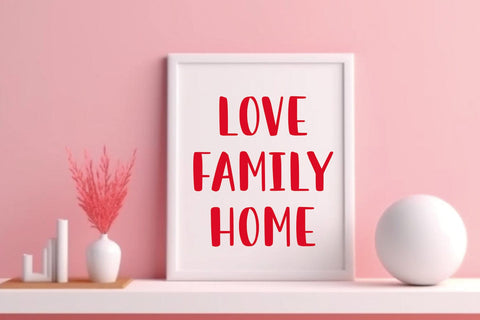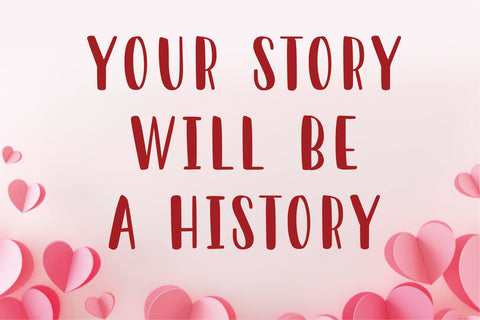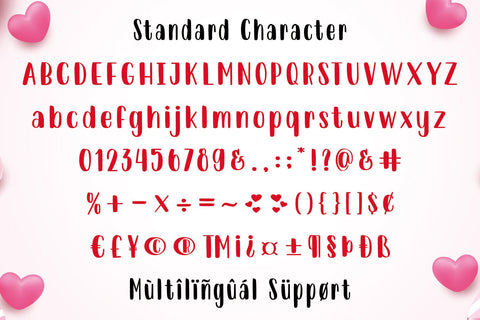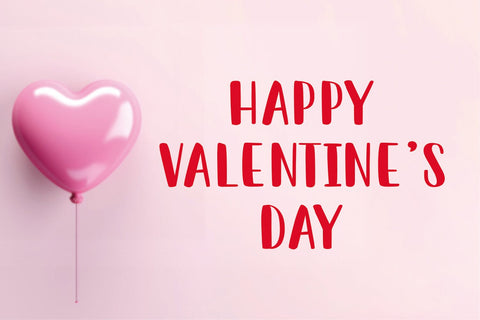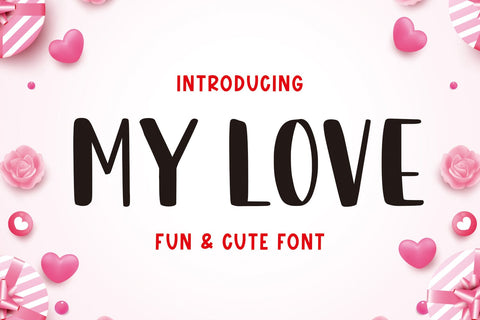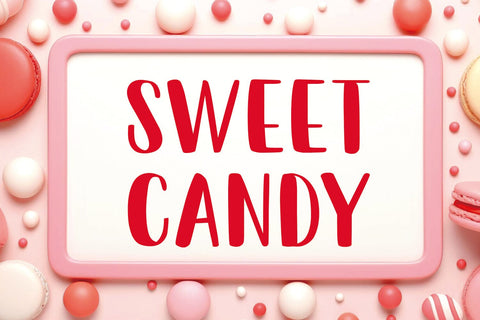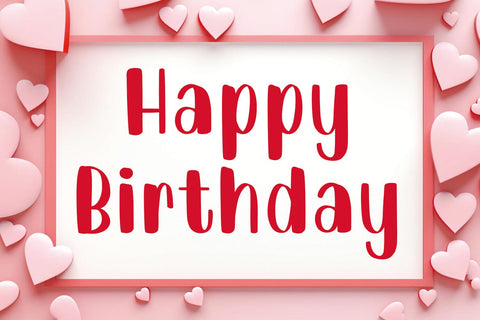
My Love - Valentine Font
Introducing “My Love” Font – an enchanting display font designed to add a touch of charm and sweetness to your projects. With its adorable and captivating style, this font is perfect for expressing love on occasions like Valentine’s Day, Mother’s Day, or for any heartfelt crafts, greeting cards, decorations, craft lettering, embroidery, and more.
The whimsical curves and playful strokes of “My Love” Font bring life to your designs, making them stand out with an irresistible cuteness that evokes feelings of love and tenderness. Embrace the joy of crafting heartfelt messages and creating beautiful decorations with this delightful typeface.
Elevate your projects and spread love and warmth with every stroke of “My Love” Font. Download it now and infuse your creations with an extra touch of affection!